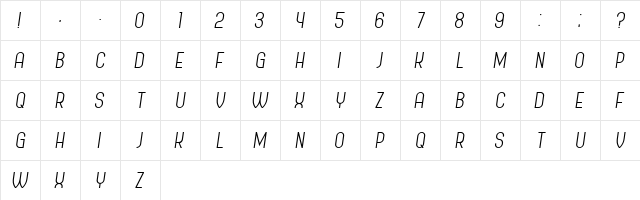
Policemen Light Italic Font Preview
Design Context for Policemen Typeface
Policemen takes a measured approach to typography — its balanced proportions and neutral character make it a reliable workhorse for both digital and print work. The dynamic lean of this cut emphasises speed and emphasis in any layout. Its slender proportions lend an understated elegance to any composition.
Pro Tip: Try Policemen for annotation and caption copy alongside an upright companion — the contrast in angle creates a dynamic but ordered typographic system.